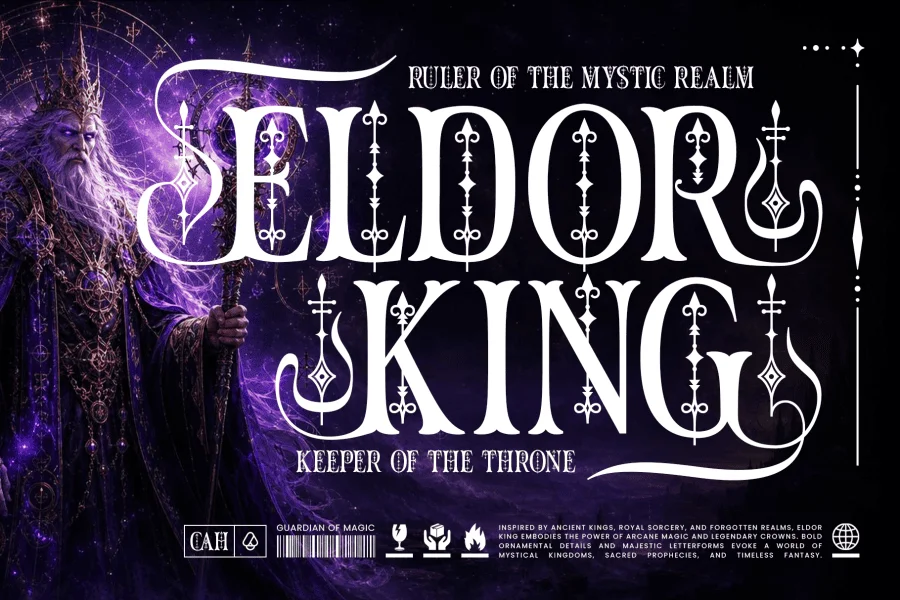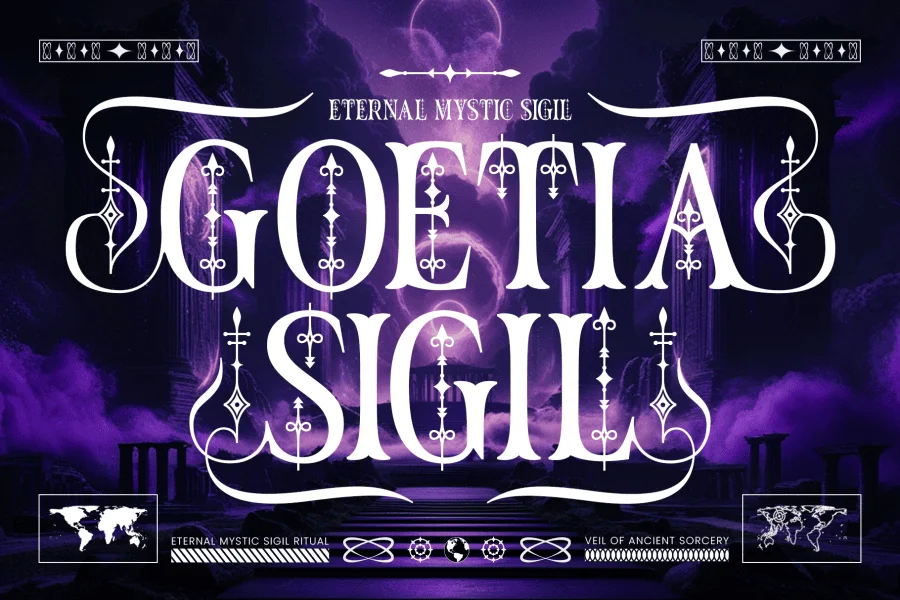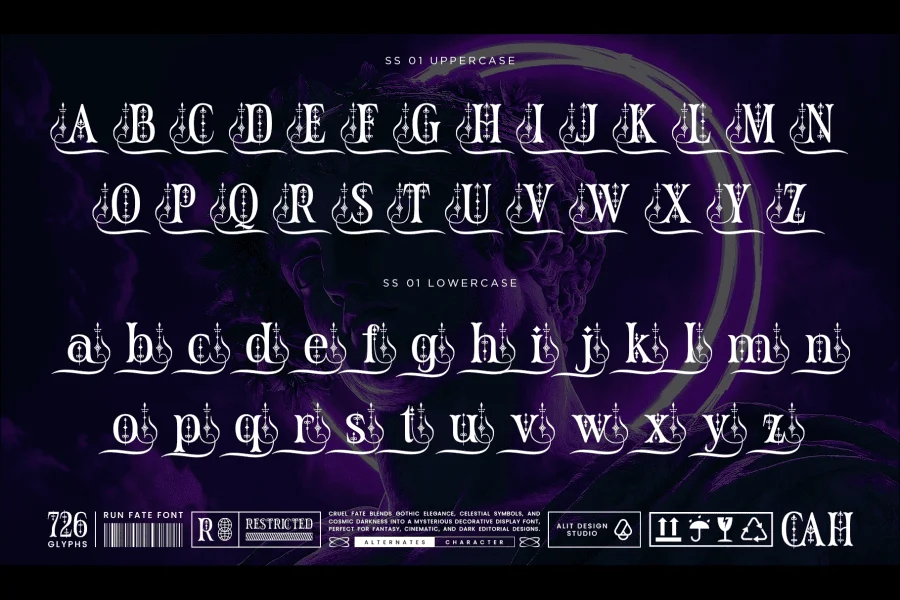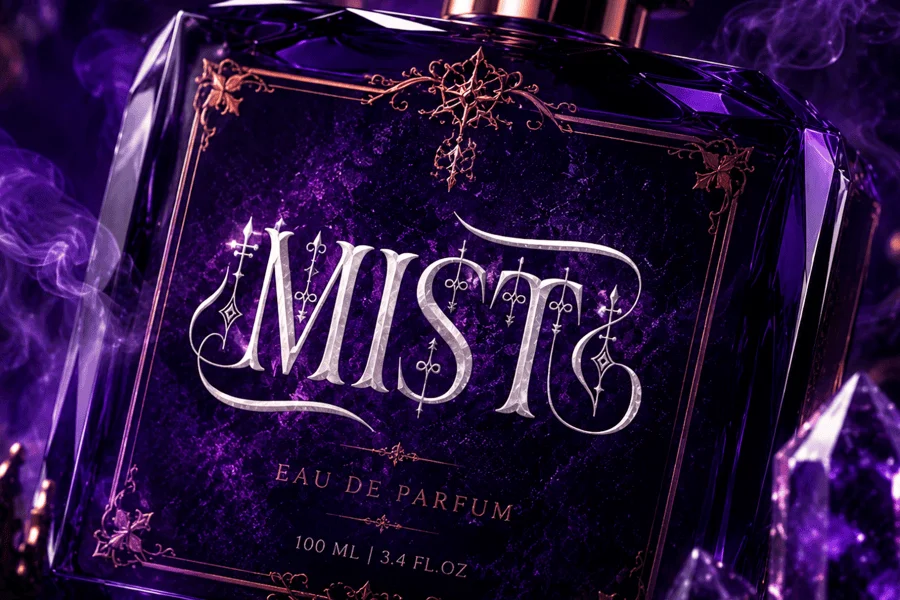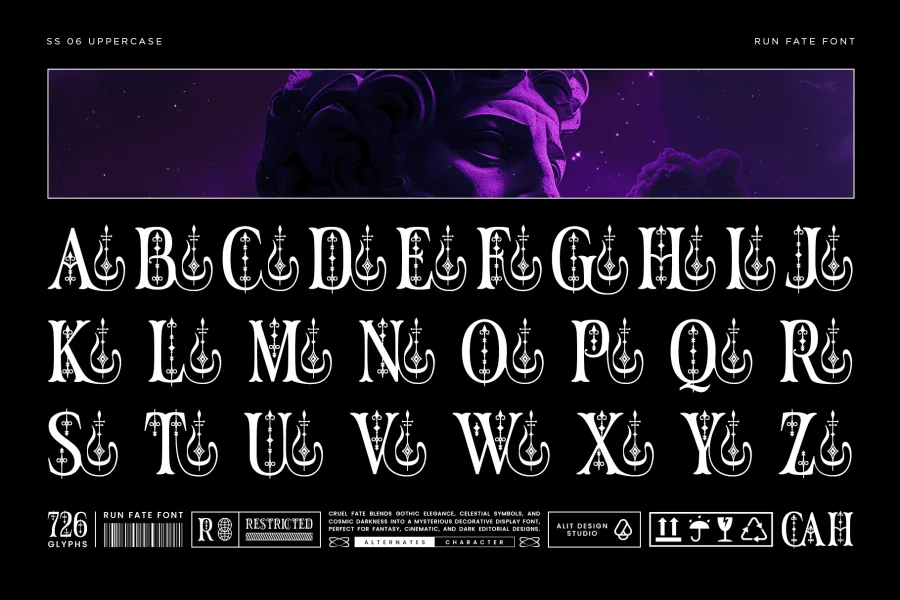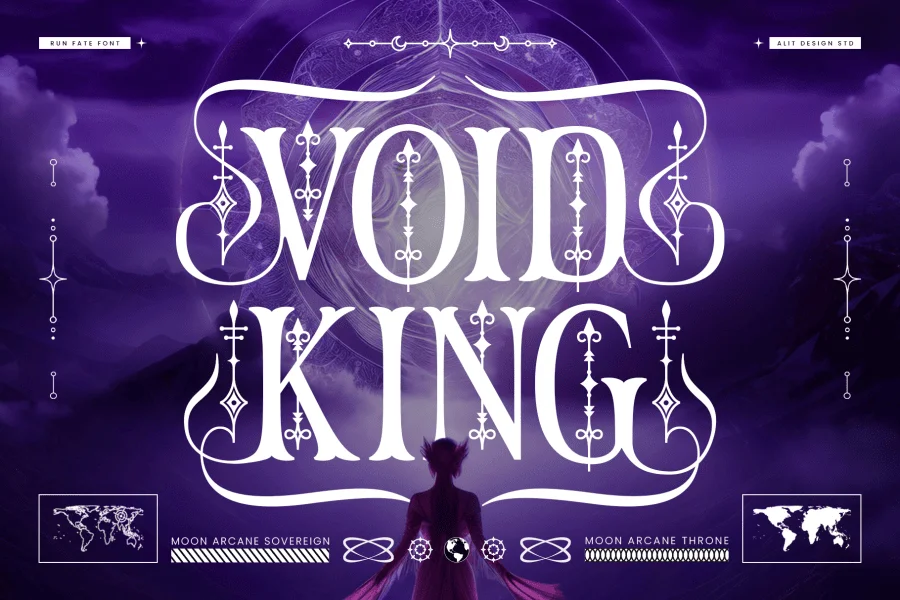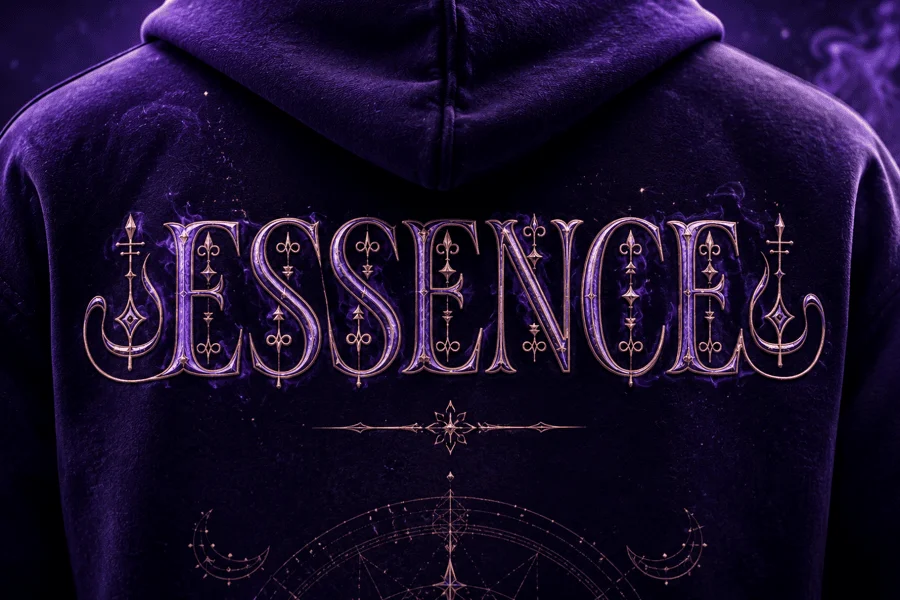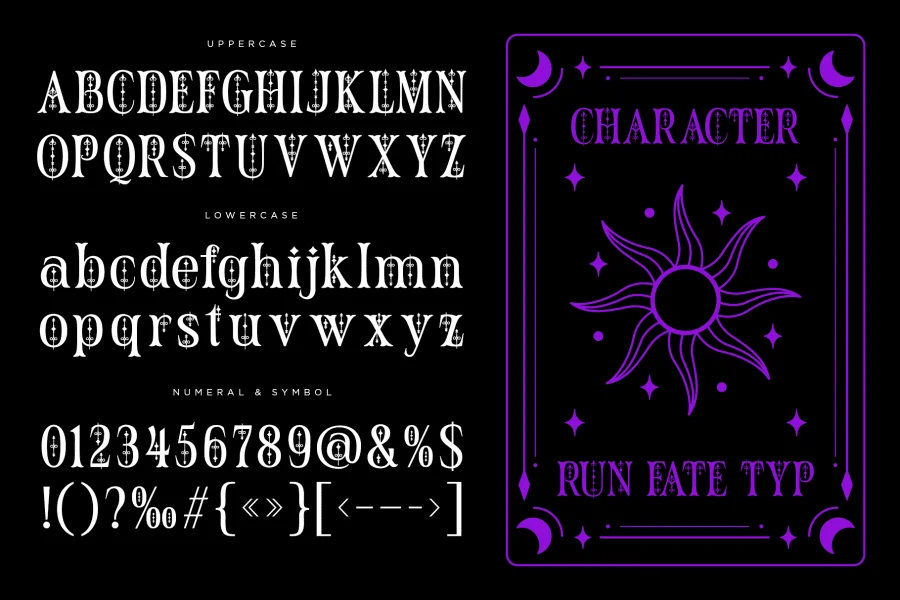
Enter the Realm of Dark Fantasy and Cosmic Elegance.
Unveil the magic of your next design project with the Rune Fate Typeface, a mystical decorative display font that masterfully blends gothic elegance with celestial darkness. Inspired by ancient sorcery, royal magic, and forgotten realms, this typeface is crafted to give your designs a powerful, luxurious, and mysterious visual presence.
Featuring sharp serif forms, dramatic sweeping curves, and intricate ornamental details, Rune Fate creates an atmosphere filled with timeless enchantment. Whether you are designing a high-end mystical brand, a captivating cinematic poster, or dark editorial layouts, this typeface commands attention and evokes a world of sacred prophecies and arcane magic.